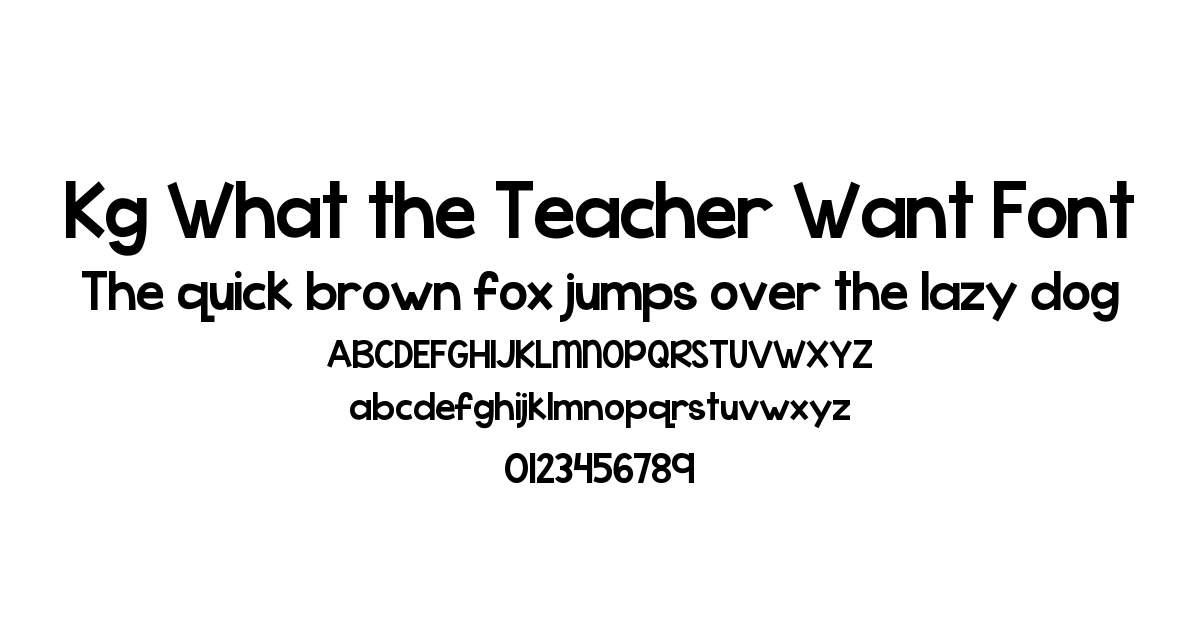
Kg What the Teacher Want Font
About Kg What the Teacher Want Font
Kg What the Teacher Want Font is a versatile typeface designed to meet the needs of modern design projects. With its clean lines and excellent readability, this font works well across various applications including web design, print media, branding, and digital interfaces.
The font features a balanced character set with multiple weights and styles, ensuring flexibility for different design requirements. Whether you're creating headlines, body text, or UI elements, Kg What the Teacher Want Font provides a professional and contemporary aesthetic that enhances your creative work.